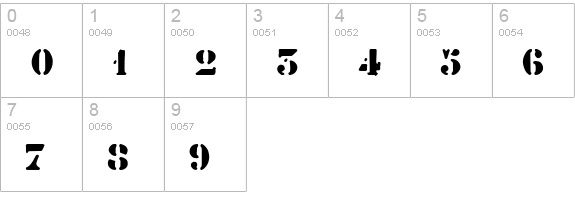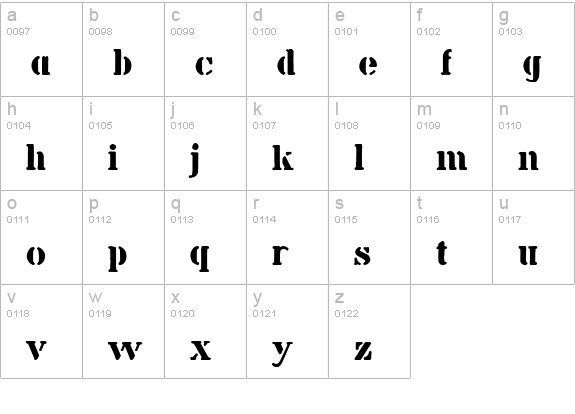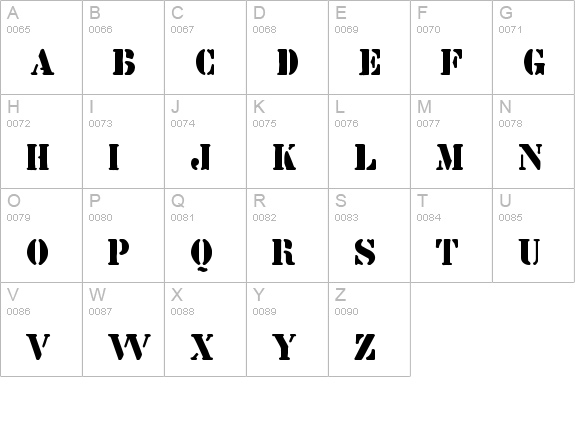
billieKid Font Details
Introducing billieKid font, an exciting and dynamic typeface that is sure to make a bold statement in any design project. With its playful yet edgy character, billieKid font captures the rebellious spirit of the wild west, perfect for adding a touch of adventure to your creative endeavors. Featuring a unique combination of sharp angles and smooth curves, billieKid font exudes a sense of energy and movement that will captivate your audience. Its versatile nature allows it to be used across a wide range of design applications, from logos and branding to headlines and posters. But what truly sets billieKid font apart is its accessibility. Available for free download at FontsMarket.com, this font allows designers of all skill levels to effortlessly incorporate its captivating style into their projects. Whether you're a seasoned professional or just starting out, billieKid font is there to enhance your creativity and bring your ideas to life. With billieKid font, the possibilities are endless. Let your imagination run wild as you experiment with different weights and styles, or combine it with other fonts to create unique and eye-catching compositions. From vintage-inspired designs to modern and trendy layouts, billieKid font is the perfect tool to add that extra touch of personality and charm. So why wait? Embrace the spirit of the wild west and unleash your creativity with billieKid font. Download this amazing typeface for free at FontsMarket.com and take your designs to new heights. Whether you're designing for print or digital, billieKid font is the perfect companion to make a lasting impression. Don't miss out on this opportunity to freely access one of the most captivating and versatile fonts available. Get billieKid font today and let your creativity soar!